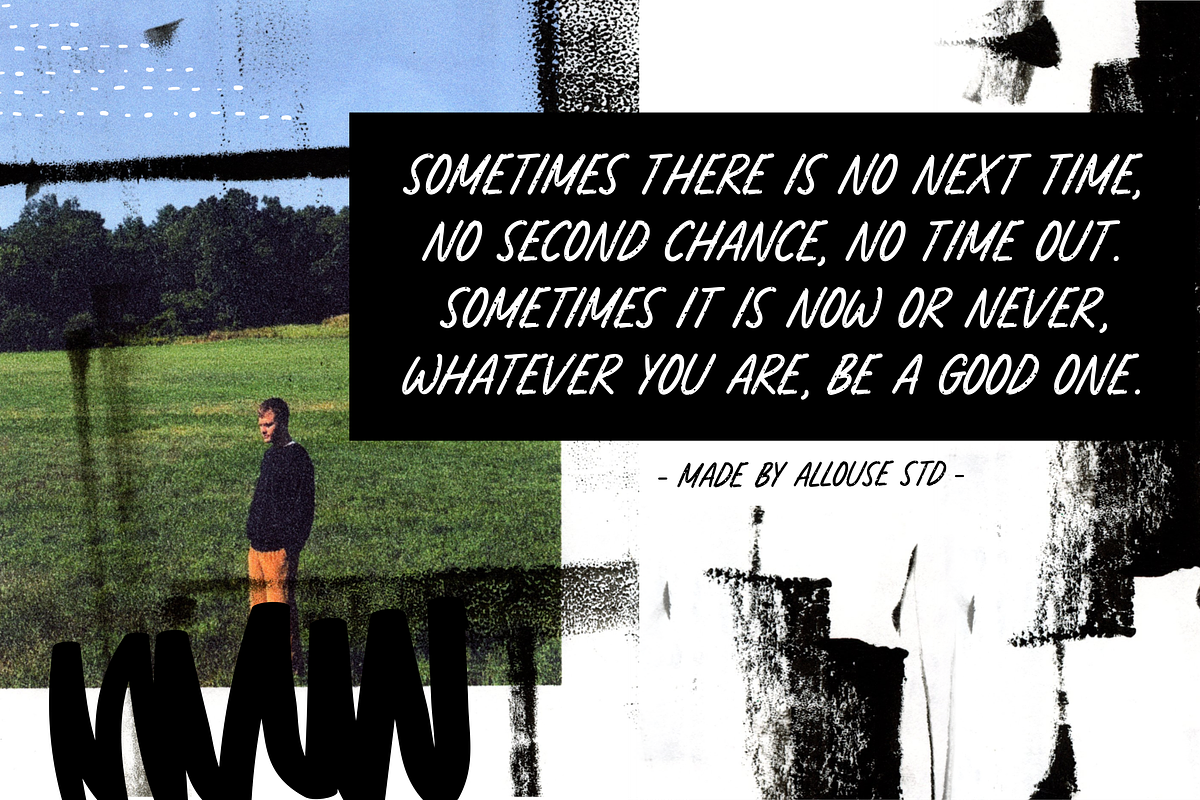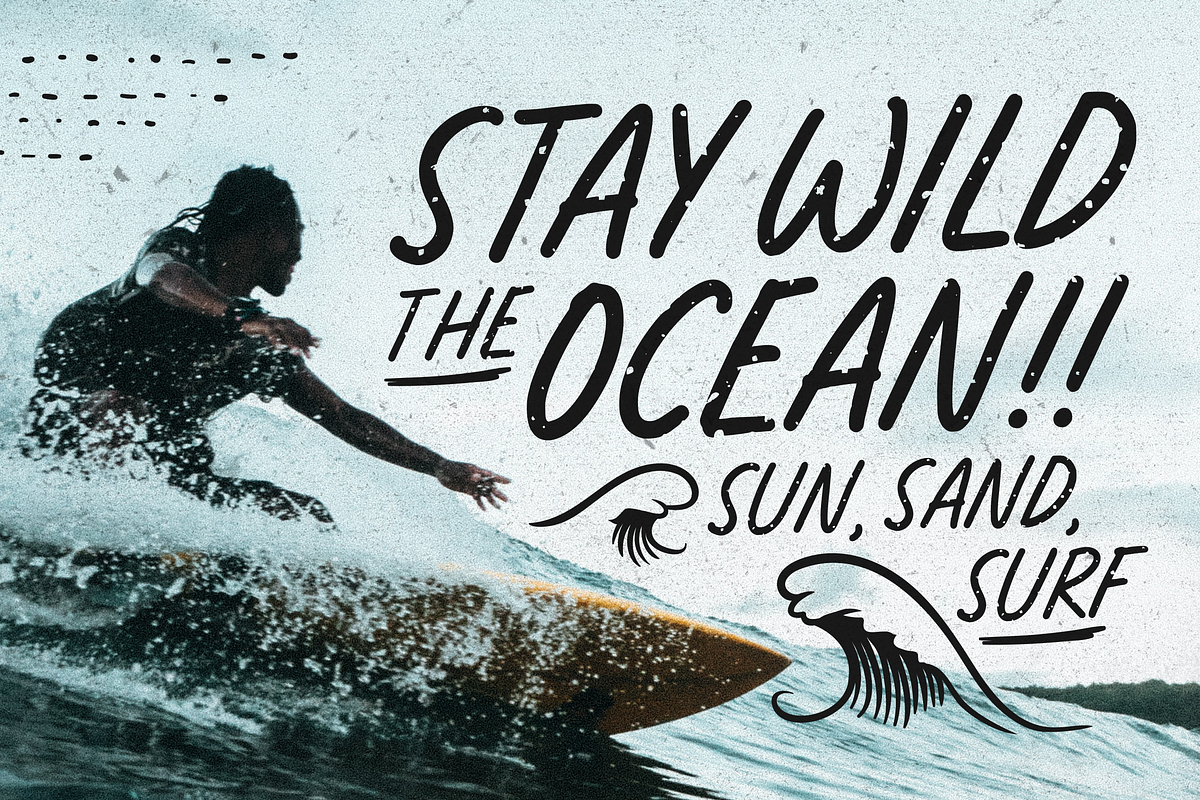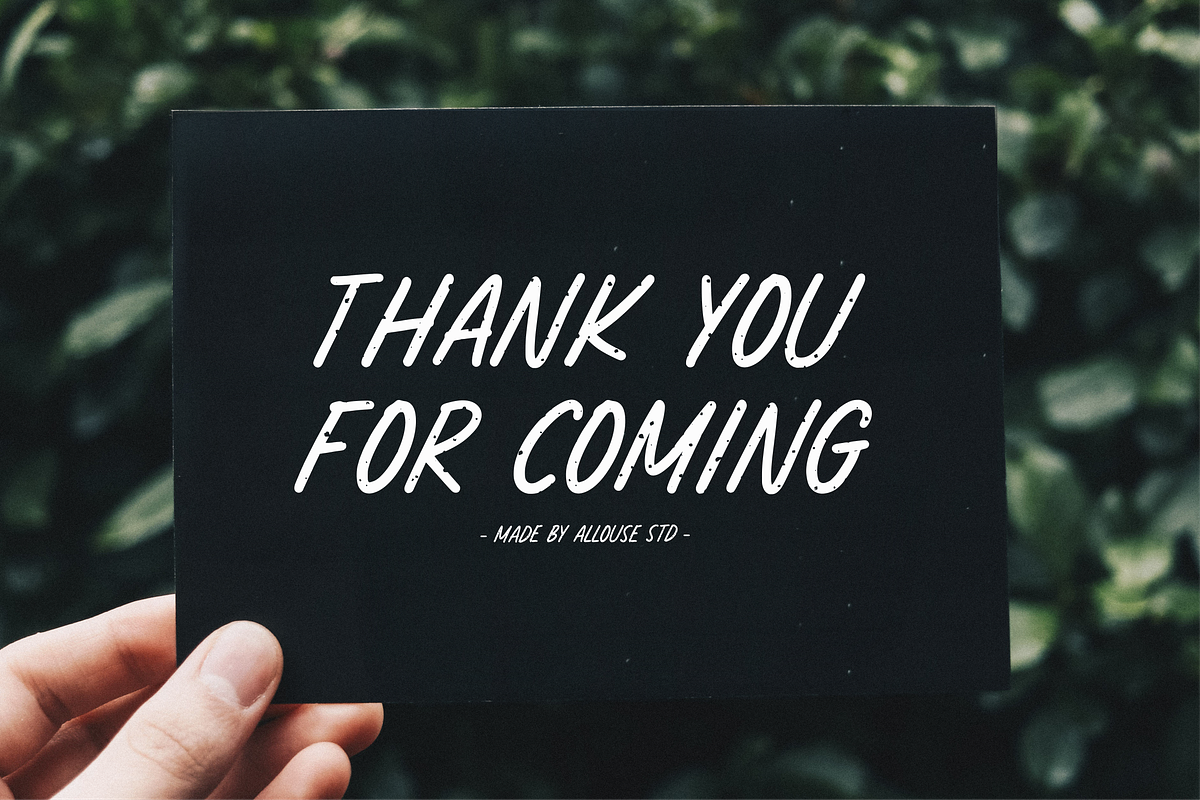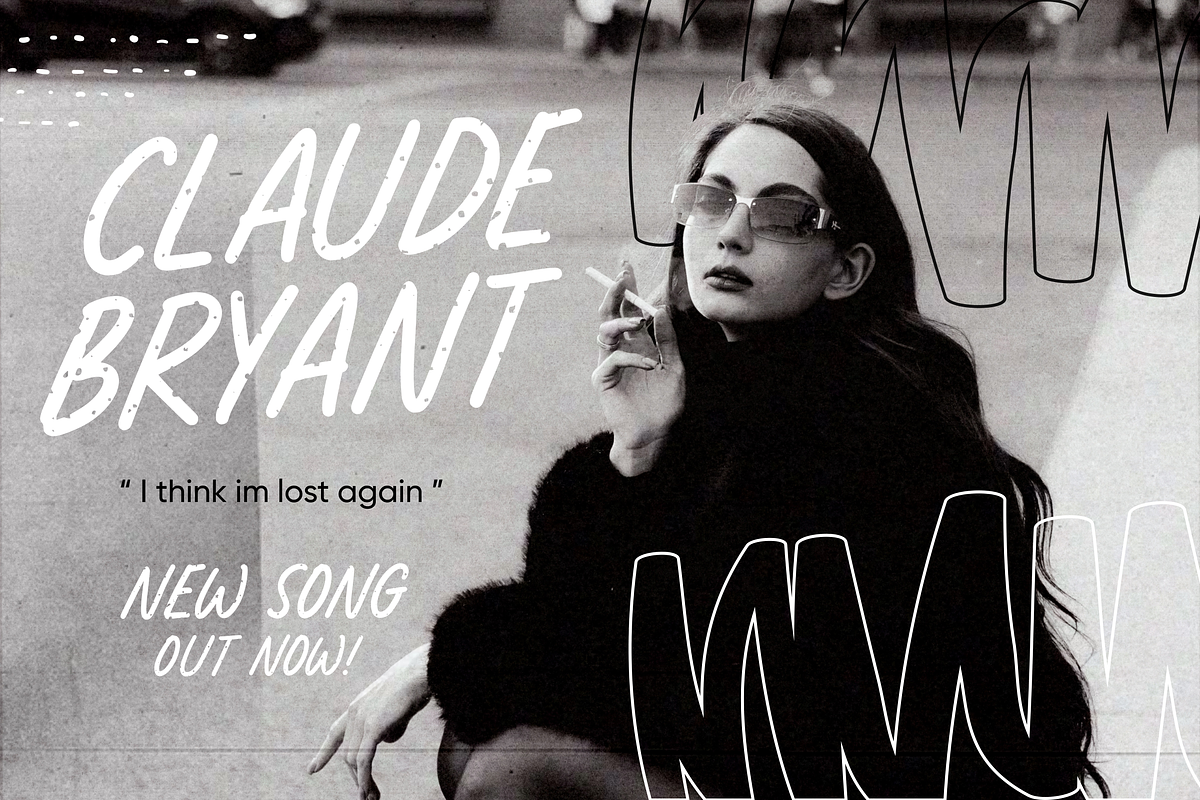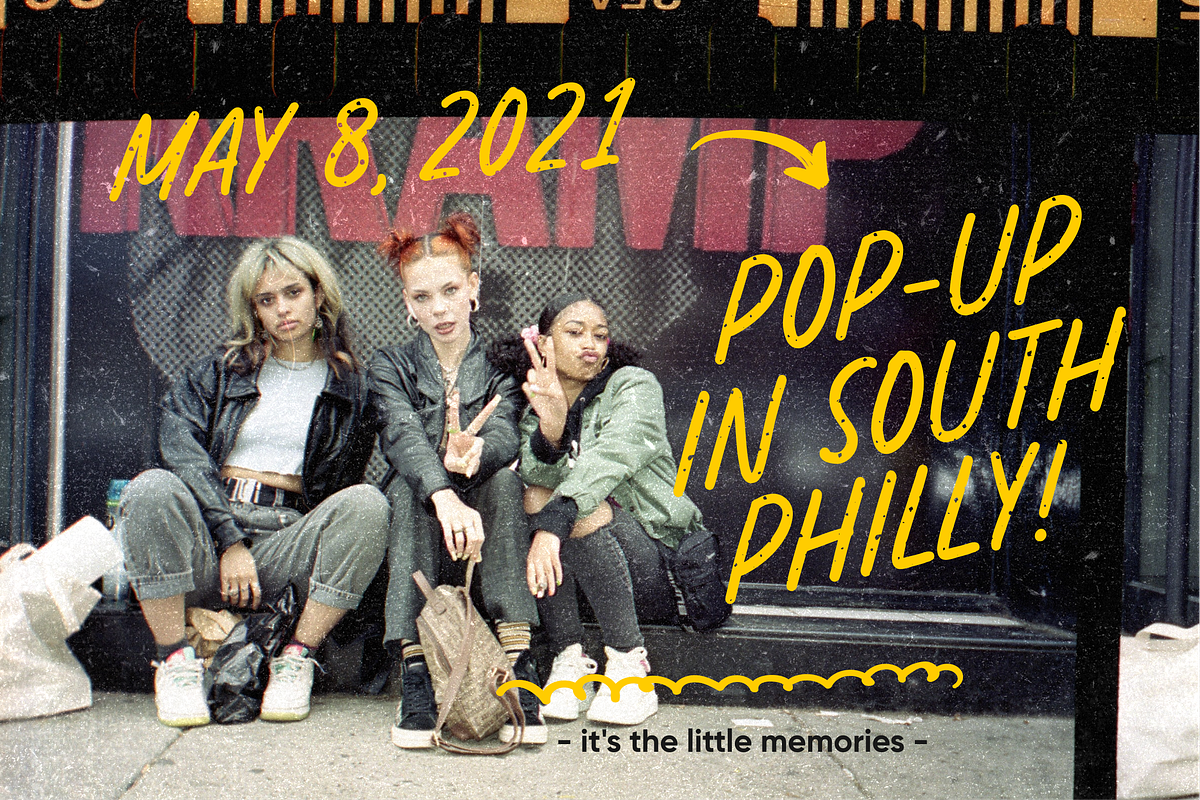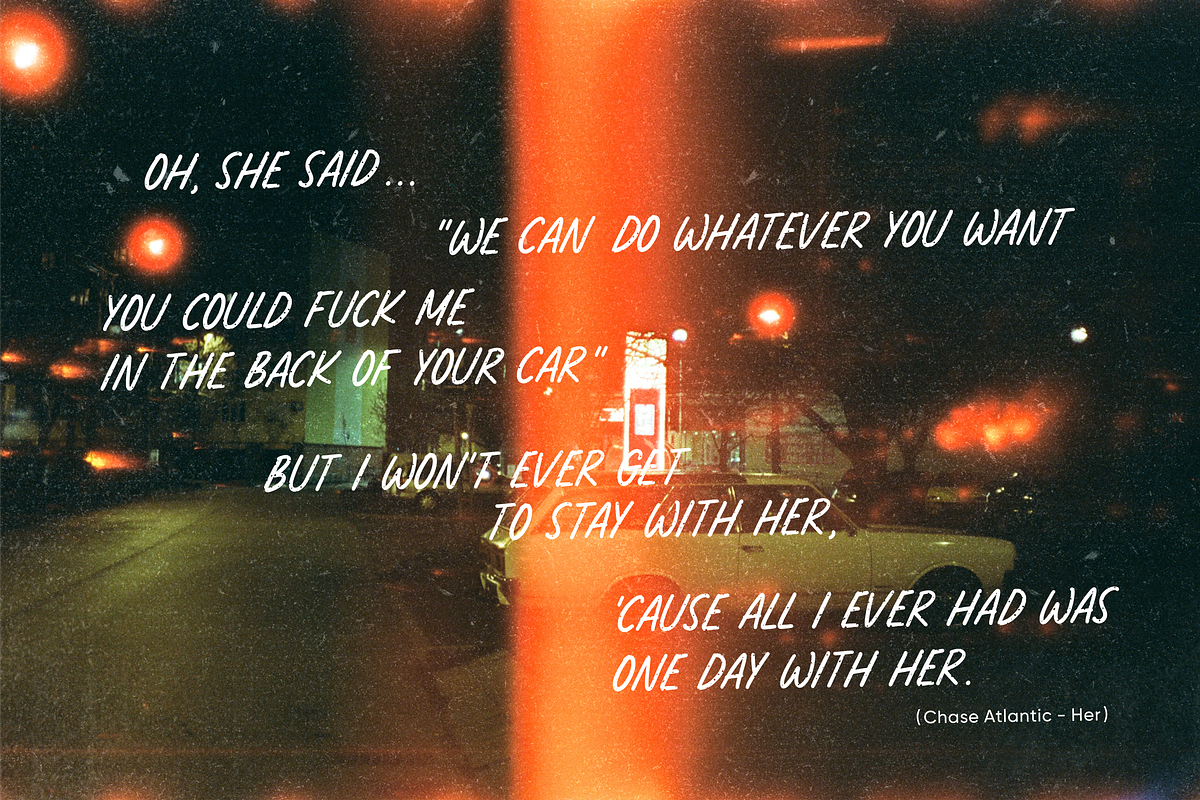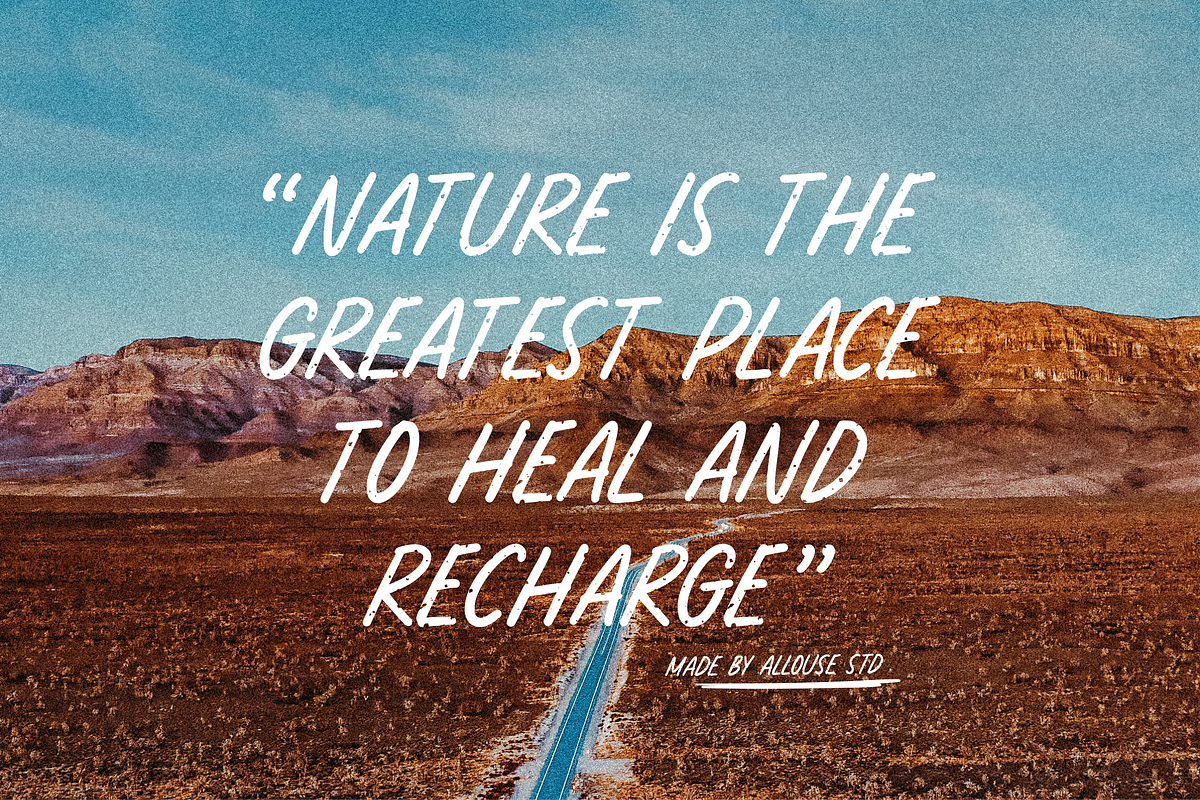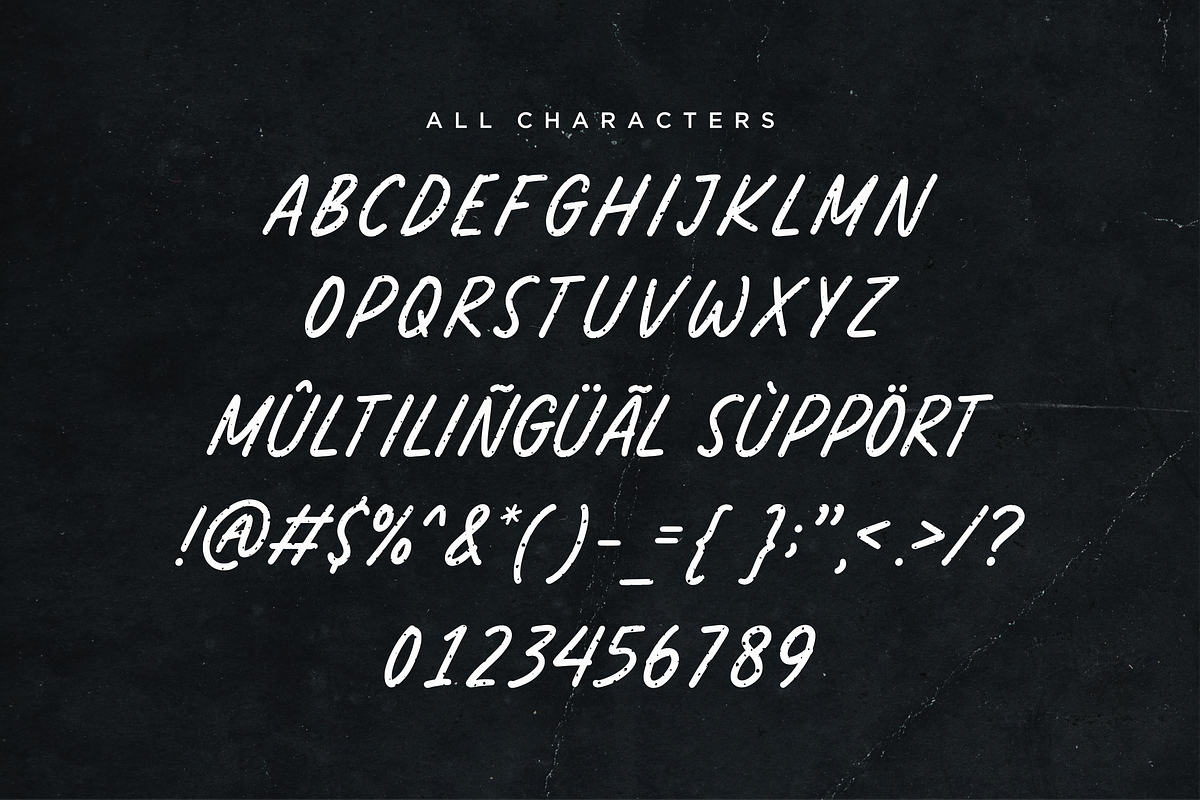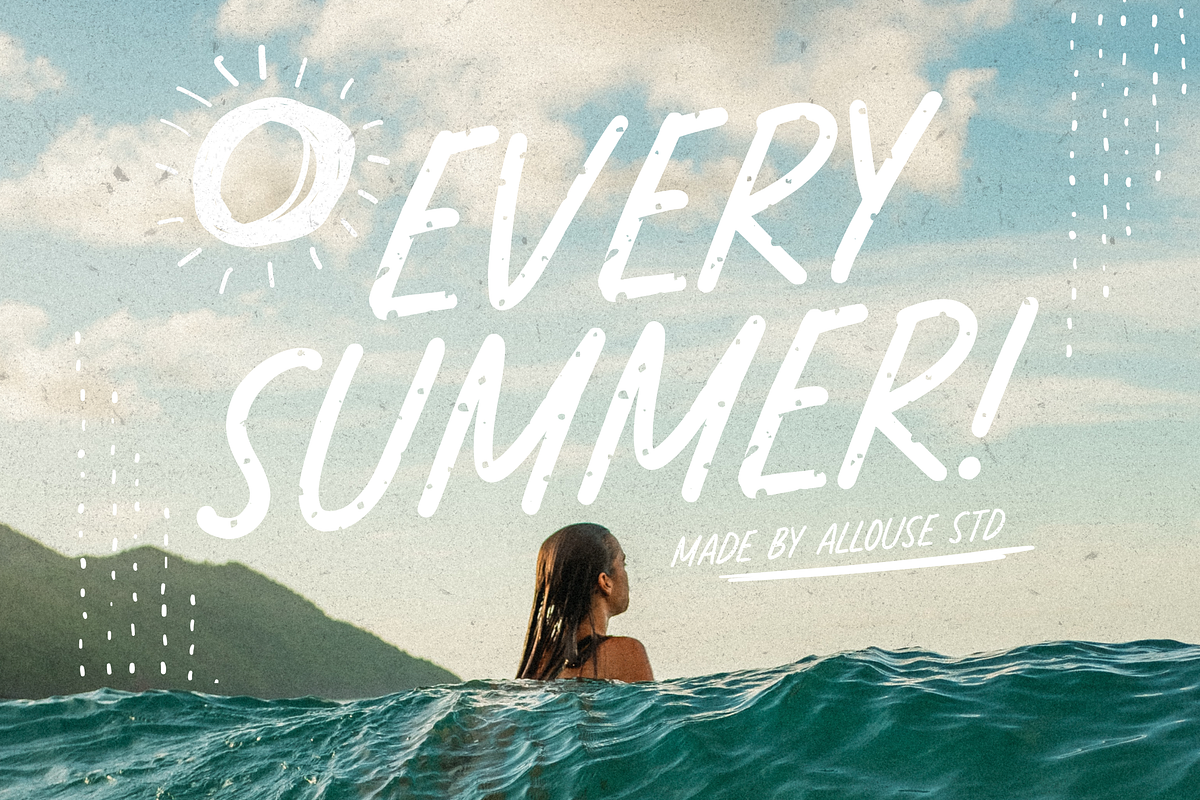
Khaylila A All Caps Font
Proudly Presenting, Khaylila A Handdrawn All Caps Font With Texture.
Khaylila is perfect for any titles, logo, product packaging, branding project, megazine, social media, wedding, or just used to express words above the background.
Khaylila also come with Multi-Lingual Support.